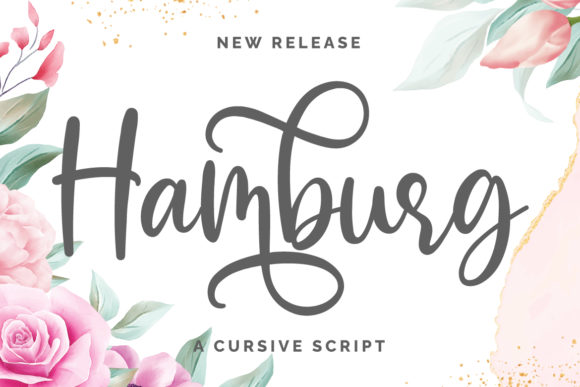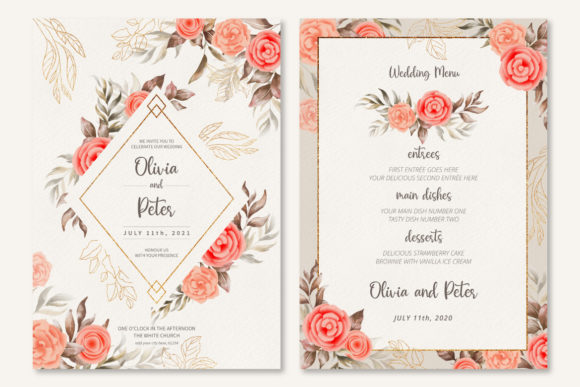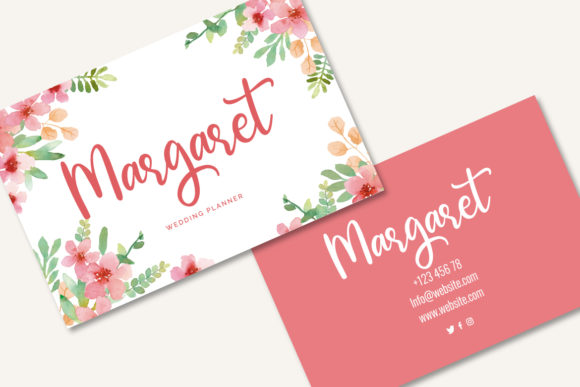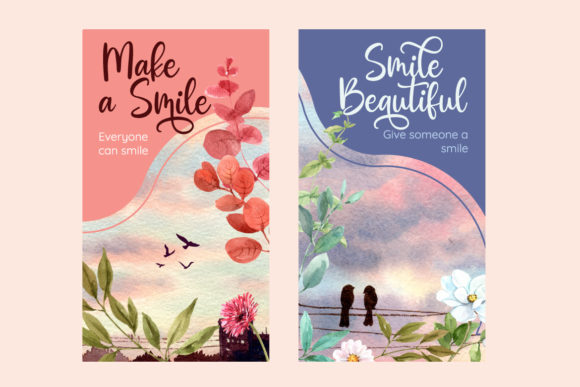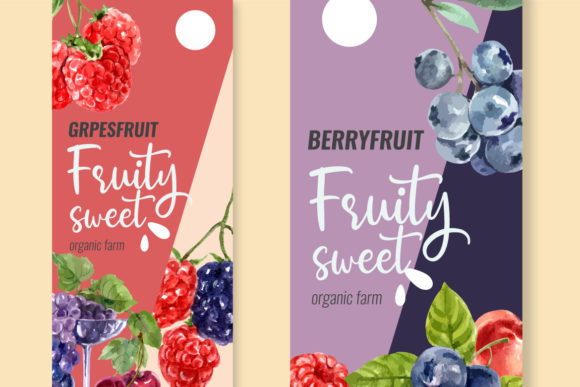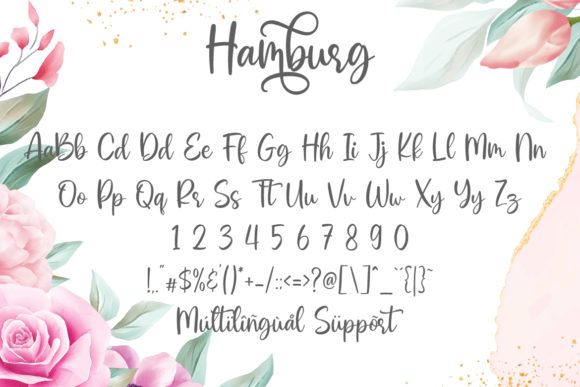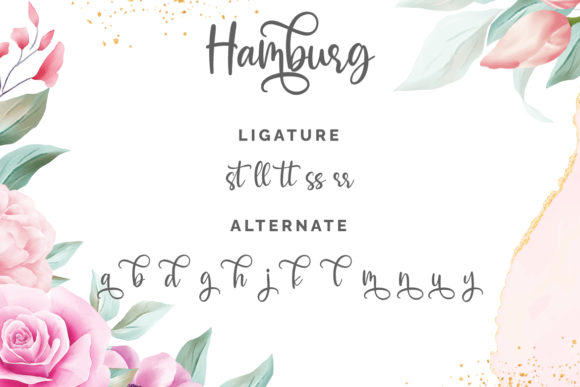
Hamburg Font
About Hamburg Font
Hamburg is a delicate, elegant, and flowing handwritten font. It has beautiful and well-balanced characters and as a result, it matches a wide pool of designs.